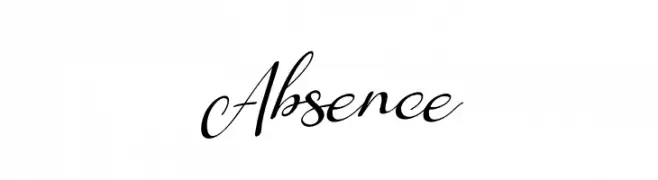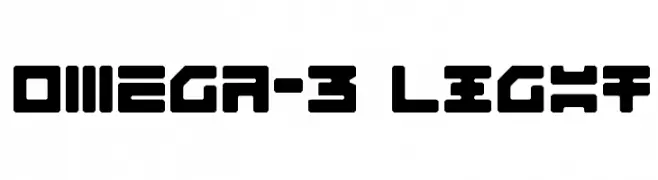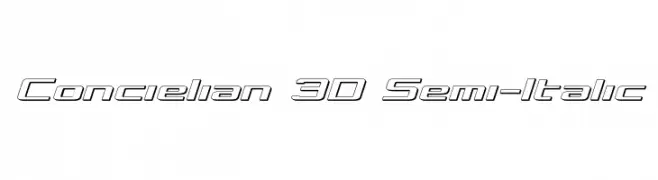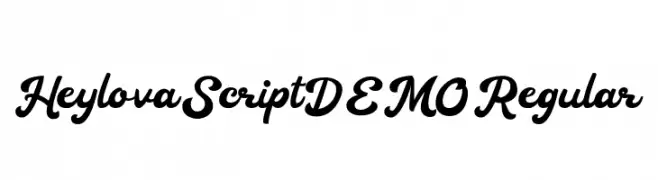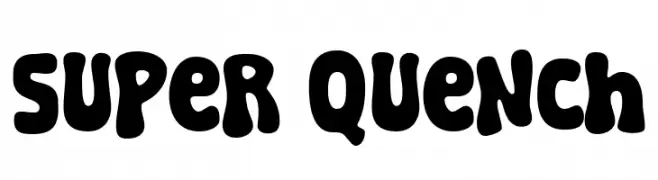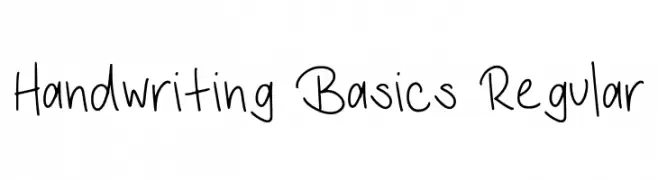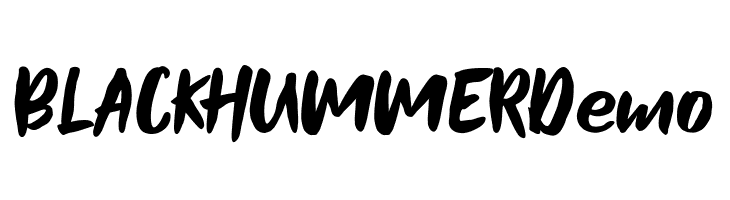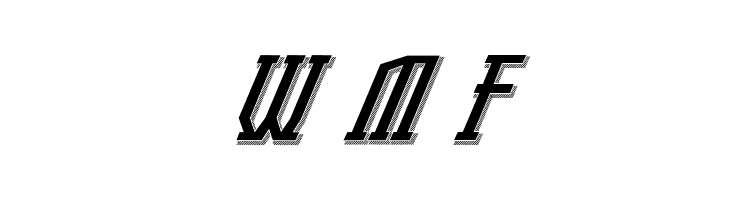
An elegant script font with fluid, cursive strokes and sophisticated style.
A bold, futuristic font with geometric shapes and a strong, modern presence.
A 3D semi-italic font with outlined characters and a futuristic style.
A bold, high-contrast font with sharp angles and modern flair.
A bold, cursive script font with smooth, connected strokes.
A futuristic, geometric font with bold, high-contrast characters.
A playful, bold font with bubbly, rounded characters and a whimsical style.
A playful, handwritten font with smooth curves and a whimsical style.
A sleek, modern italic font with elongated, flowing curves and sharp angles.
A casual, handwritten-style font with consistent strokes and playful character spacing.